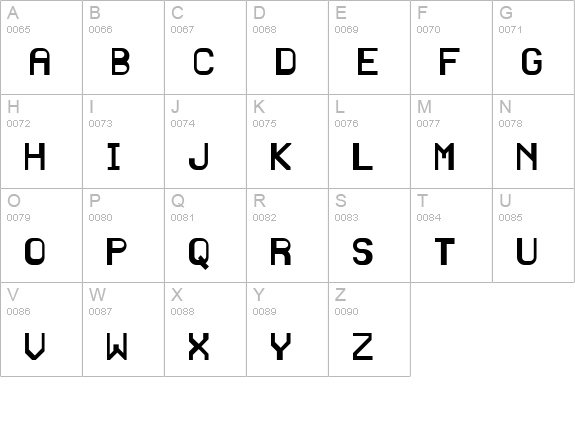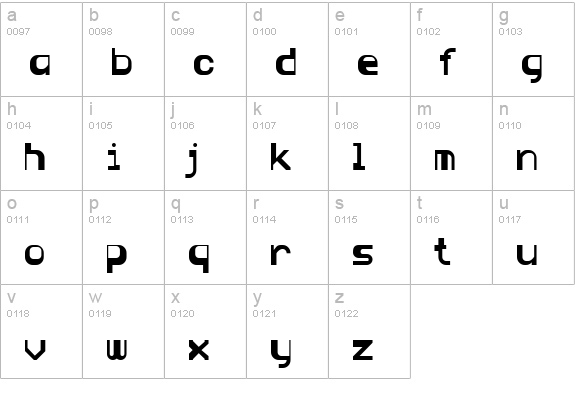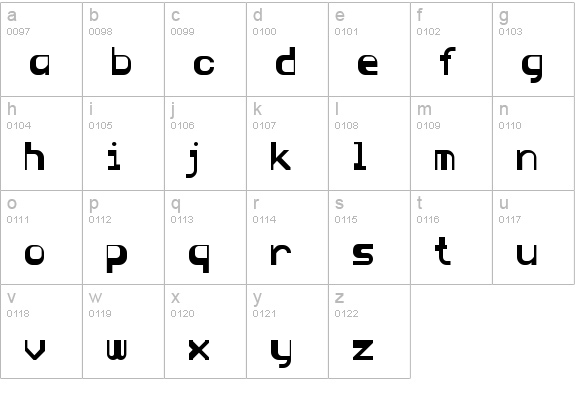
TR Blue font is a stylish and modern typeface that exudes sophistication and elegance. Its sleek and clean lines make it perfect for a wide range of design projects, from branding to editorial design. The font features a unique blend of classic and contemporary elements, giving it a timeless quality that will never go out of style. What sets TR Blue font apart is not only its striking appearance but also the fact that it is available for free download at FontsMarket.com. This means that you can effortlessly incorporate this eye-catching font into your projects without breaking the bank. Whether you're a seasoned designer looking to refresh your portfolio or a budding creative exploring new typefaces, TR Blue font is a must-have addition to your font collection. Download it today and elevate your designs with this versatile and elegant typeface.